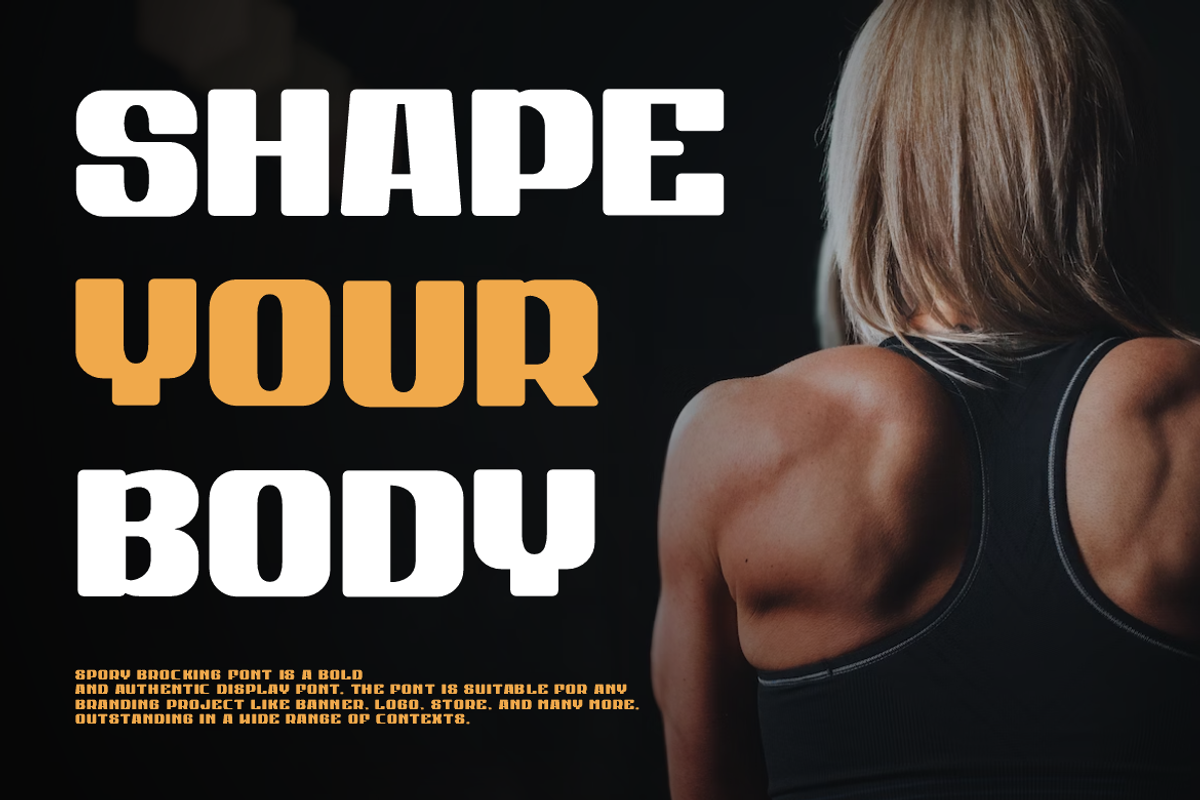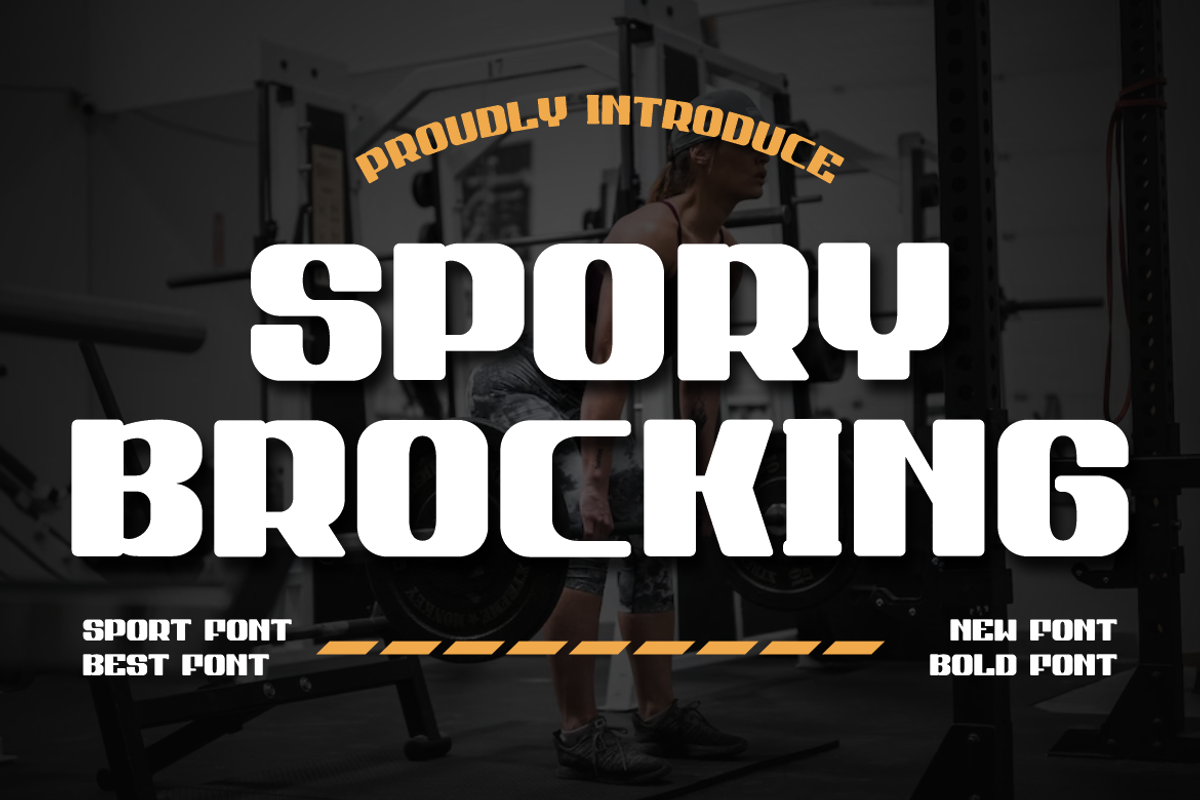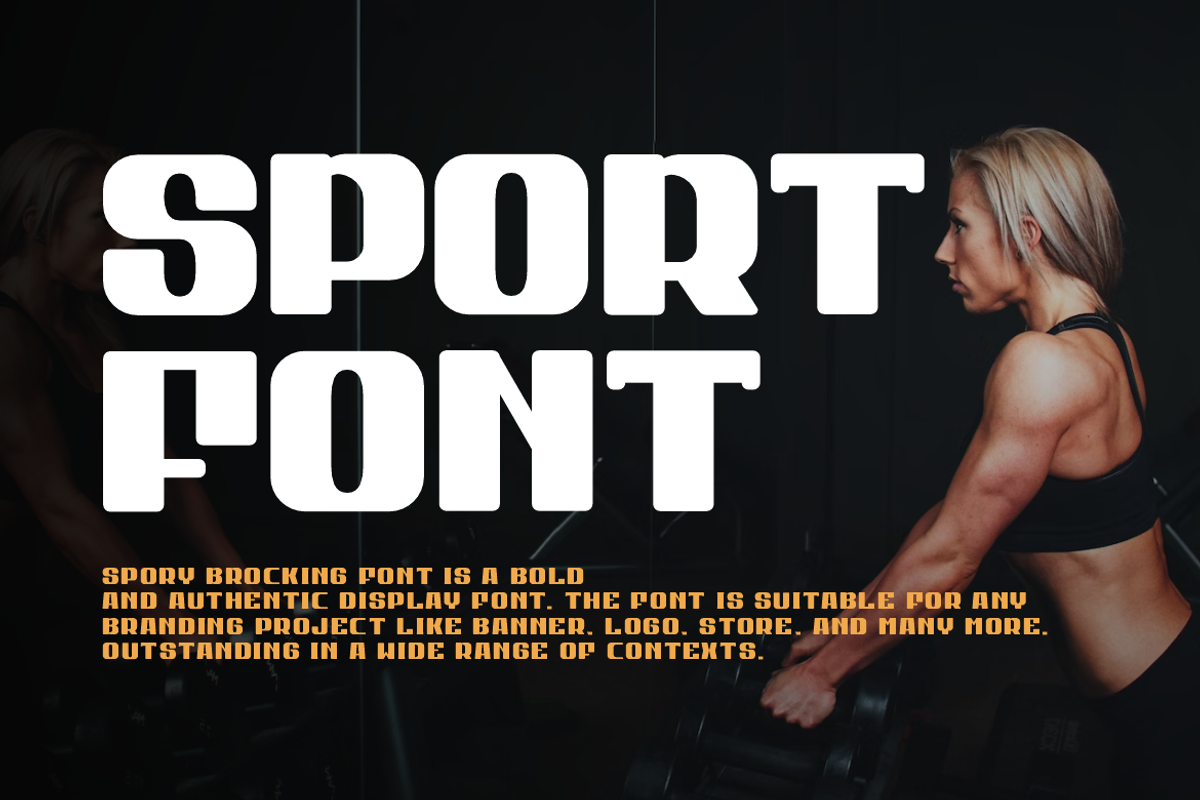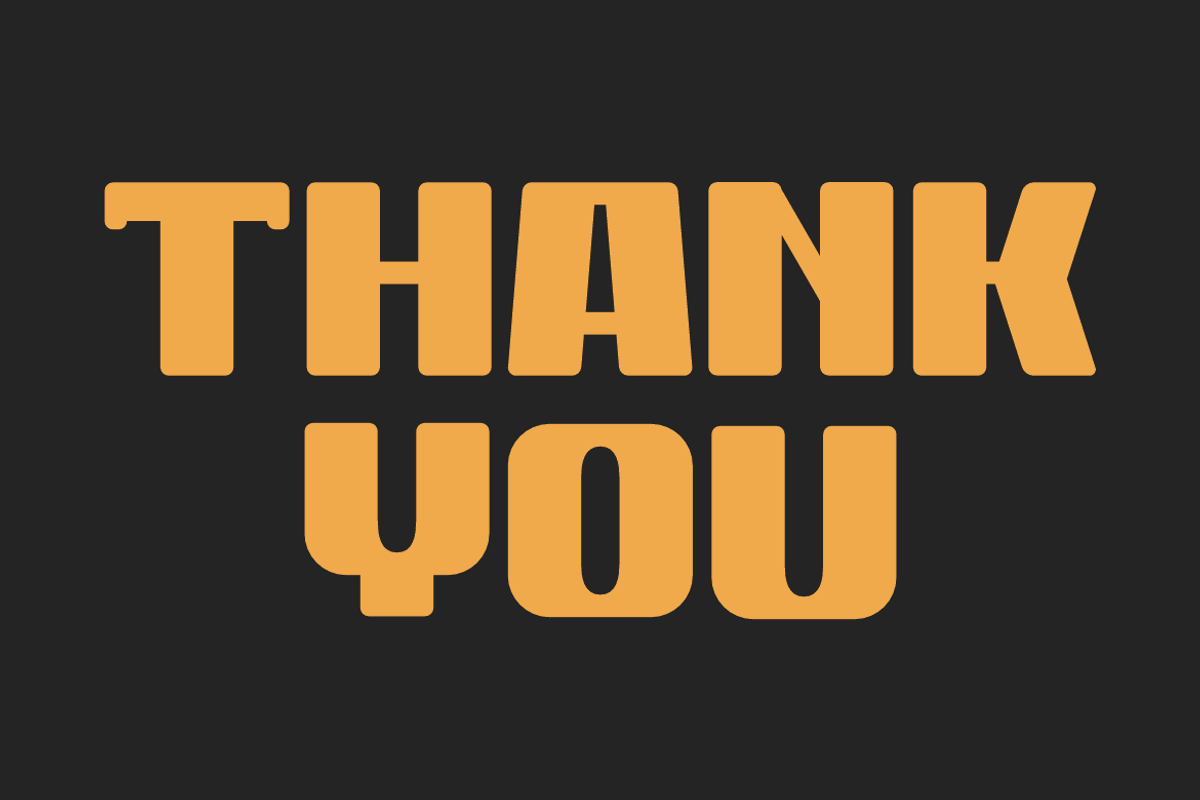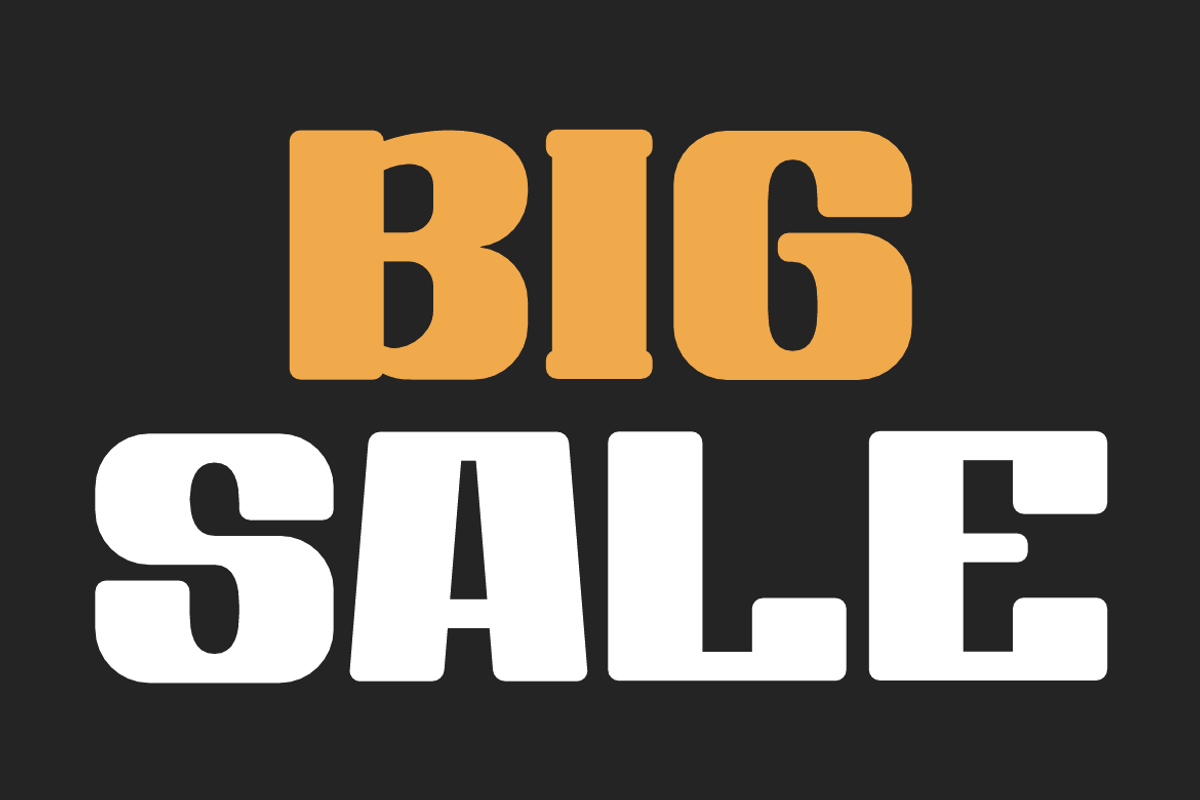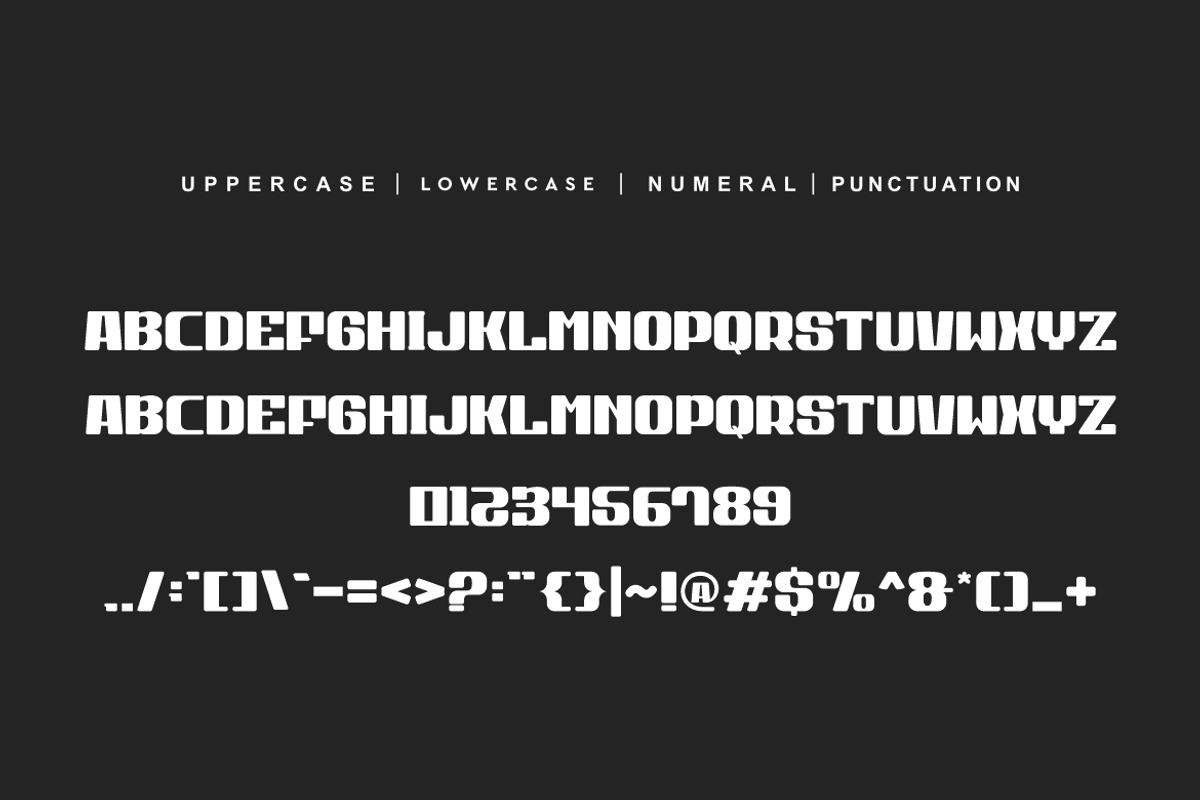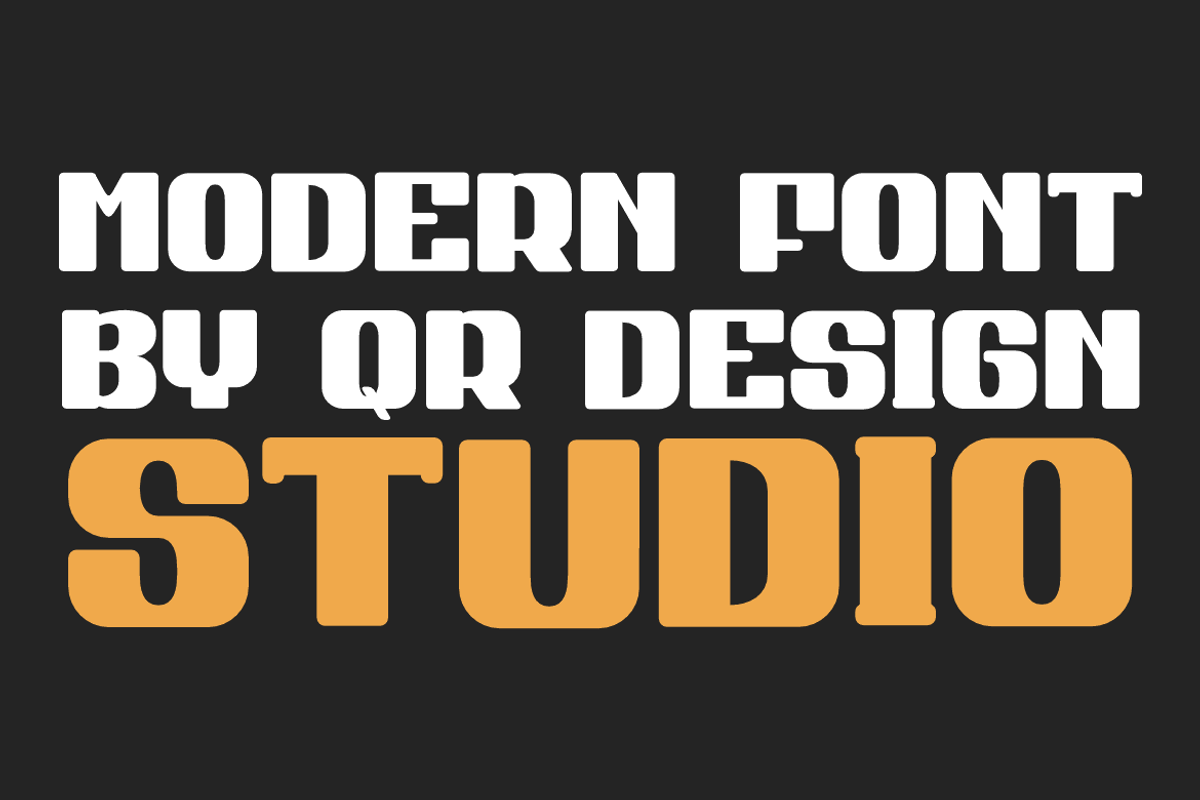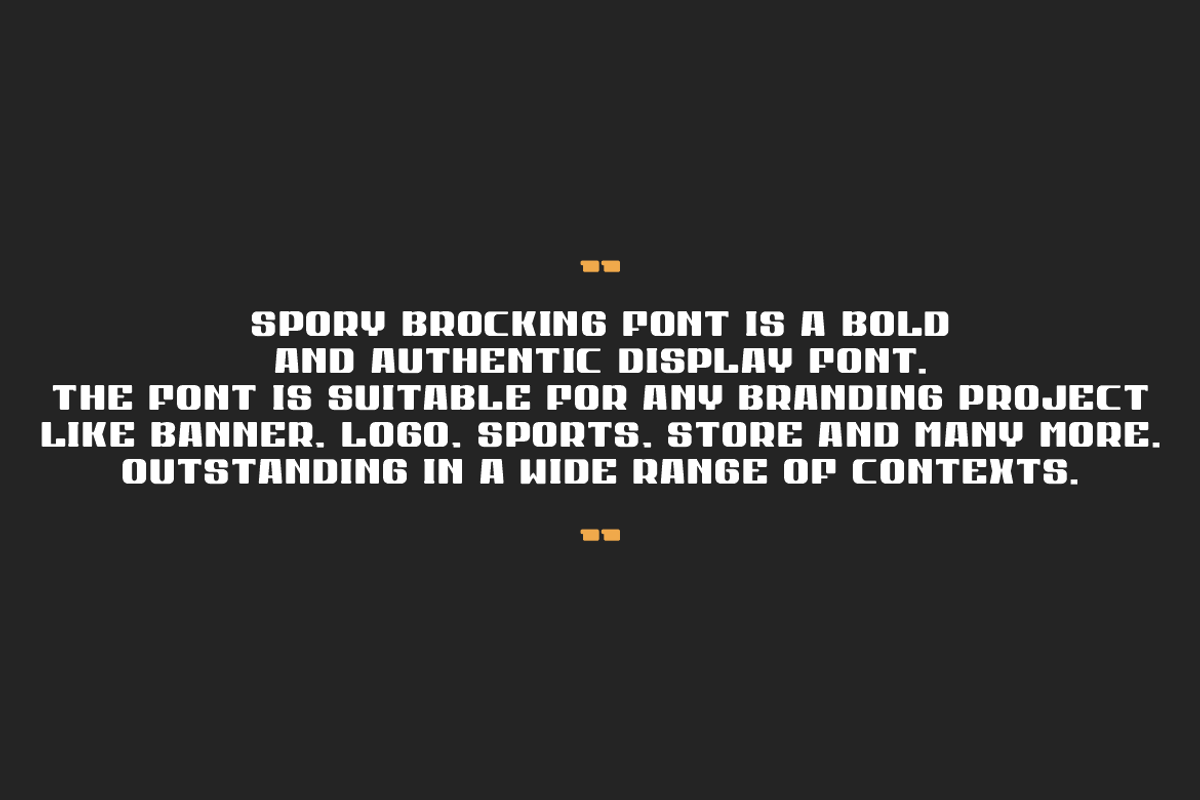
Spory Brocking
Spory Brocking Font is a bold and authentic display font. The font is suitable for any branding project like logo, sport, and many more. Outstanding in a wide range of contexts.